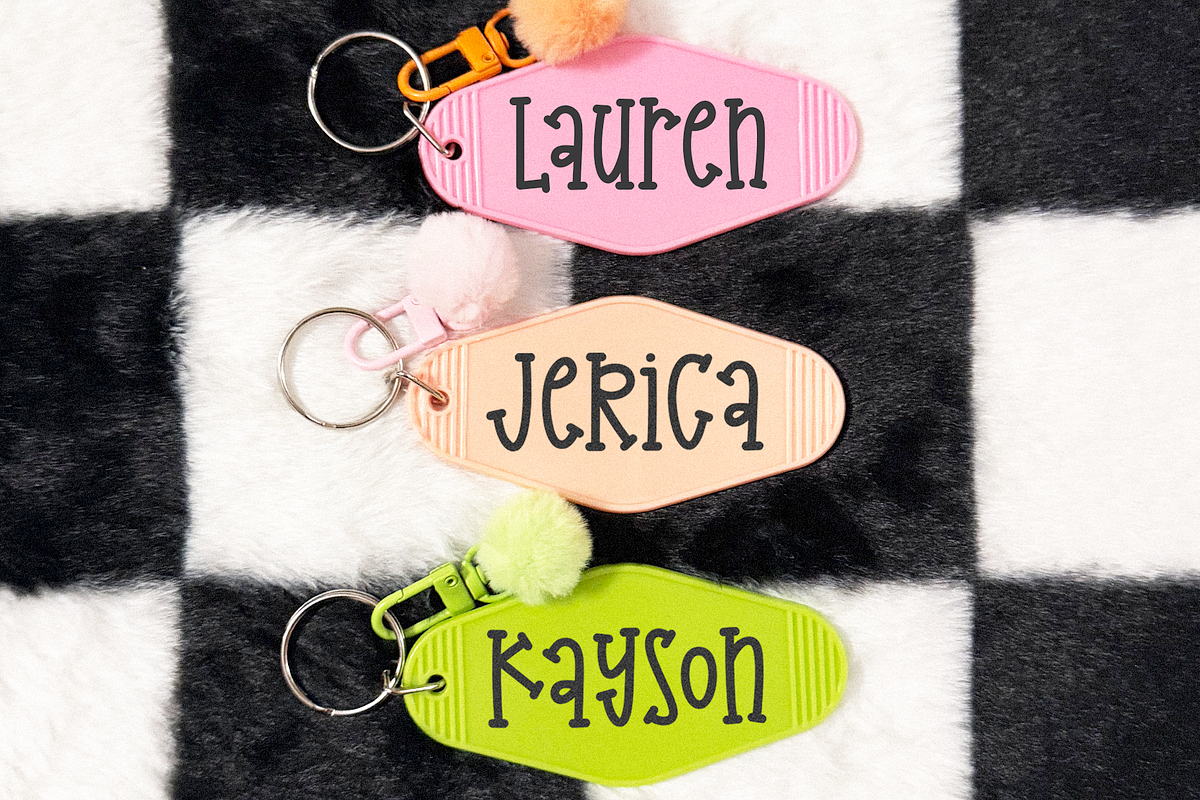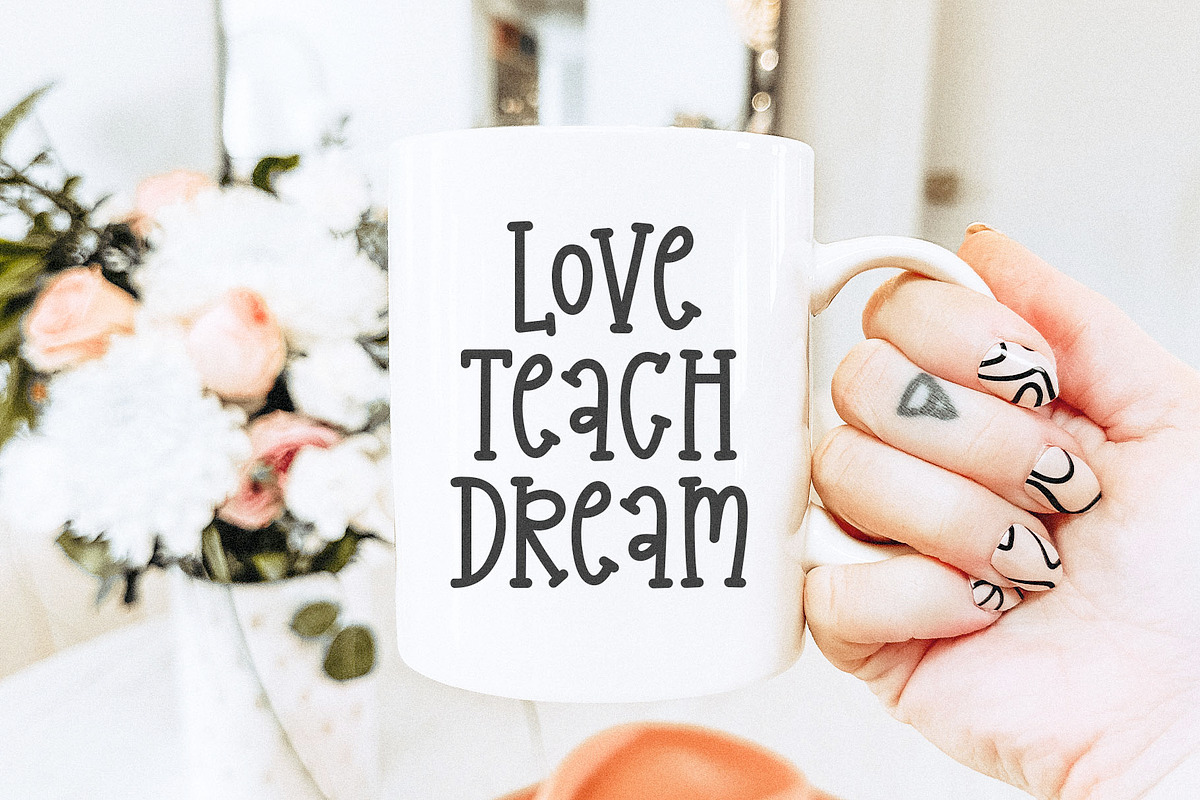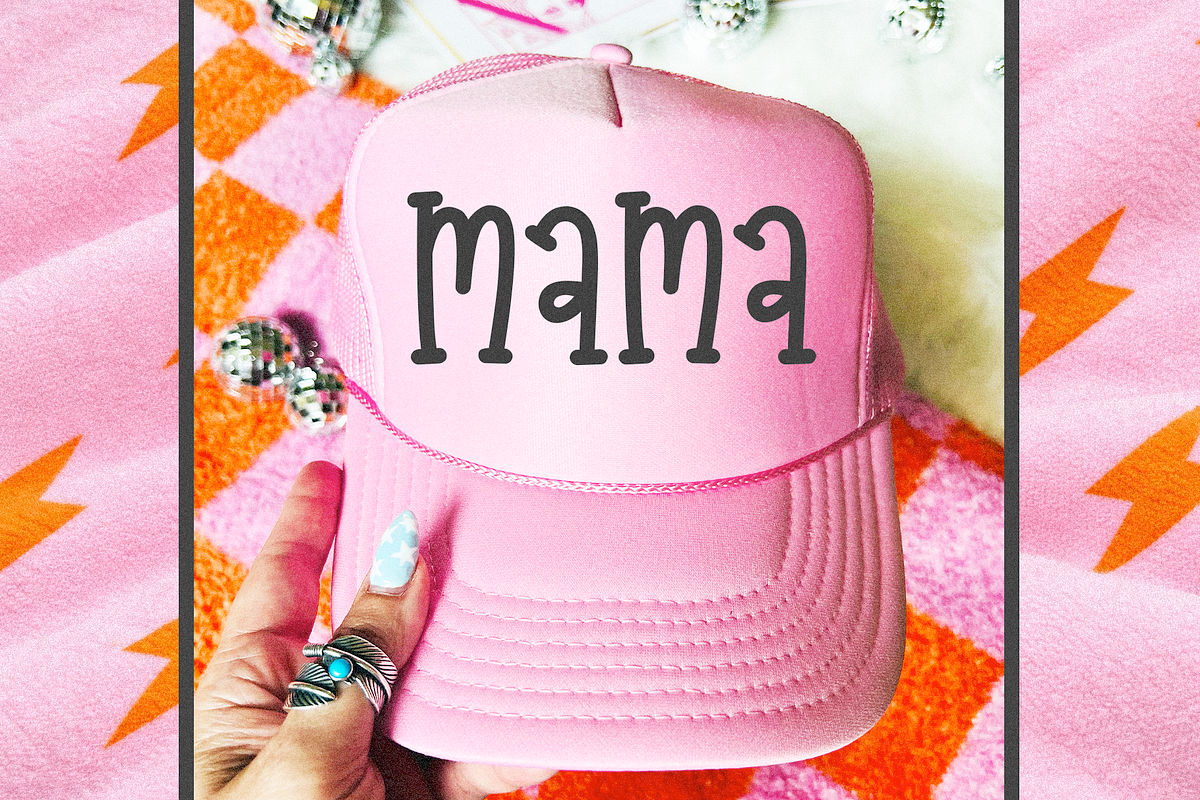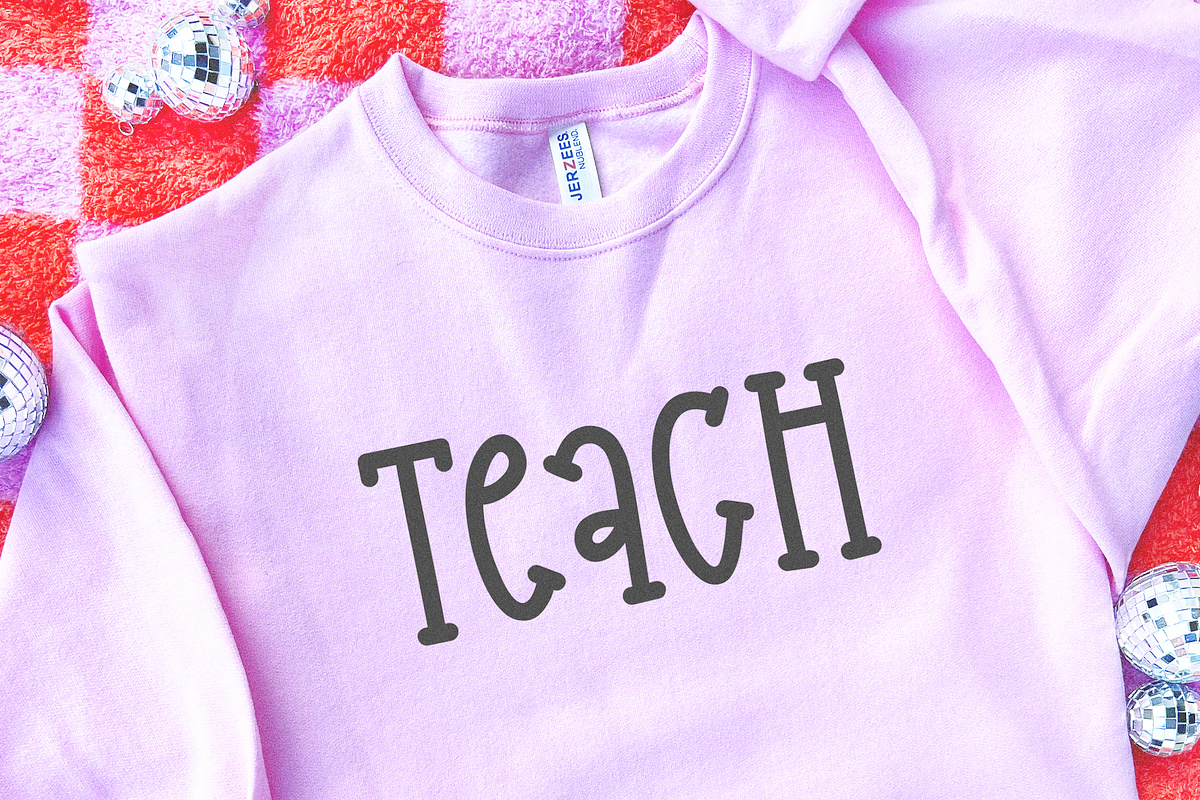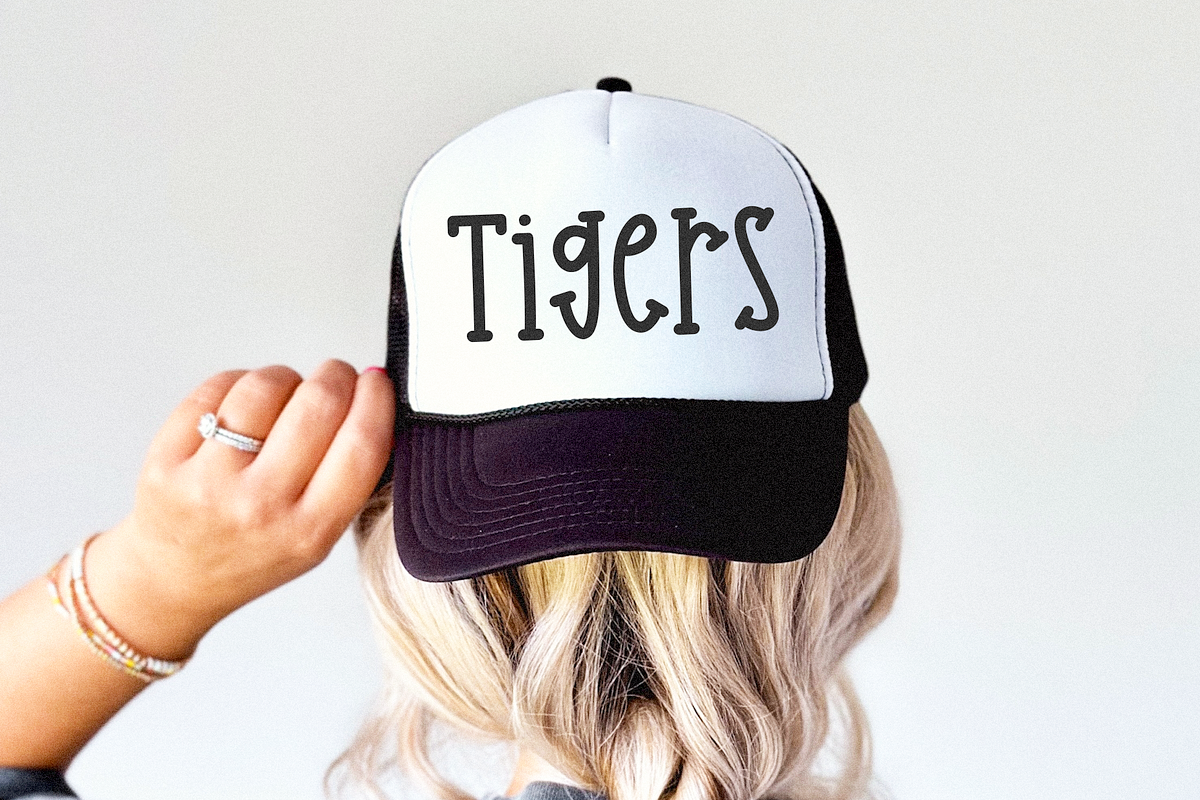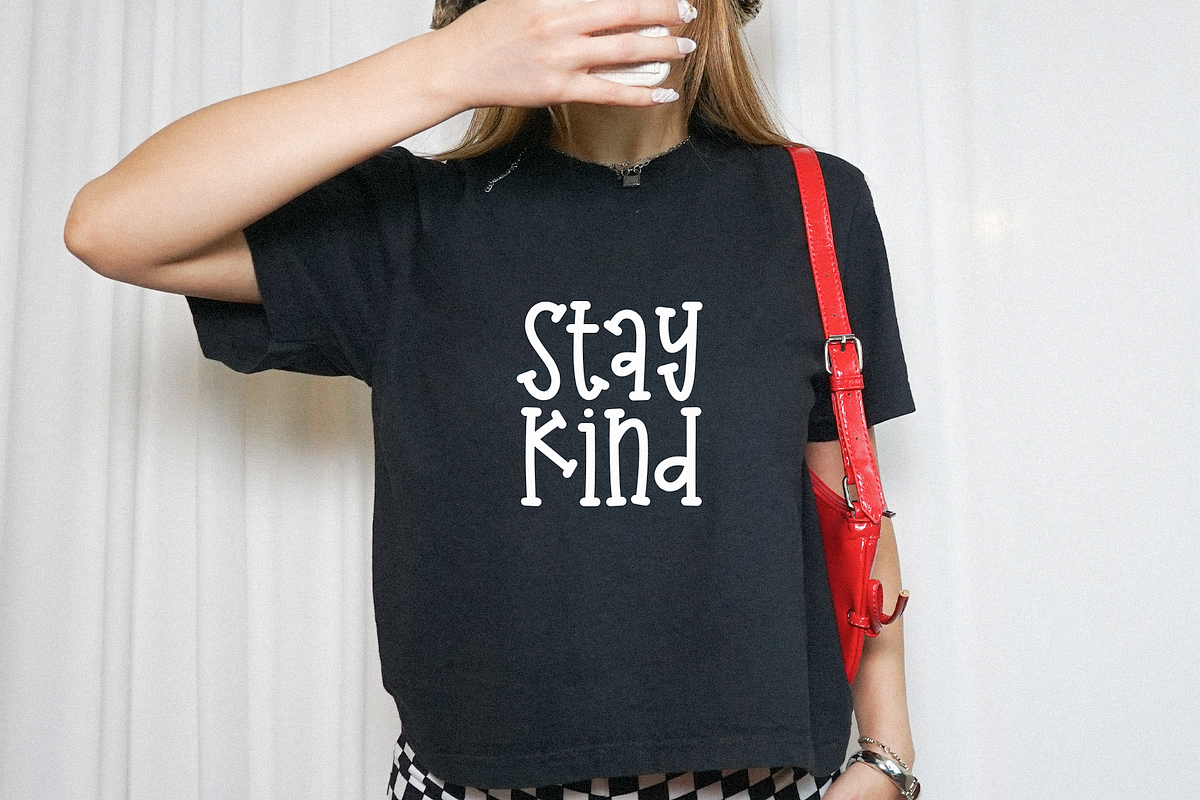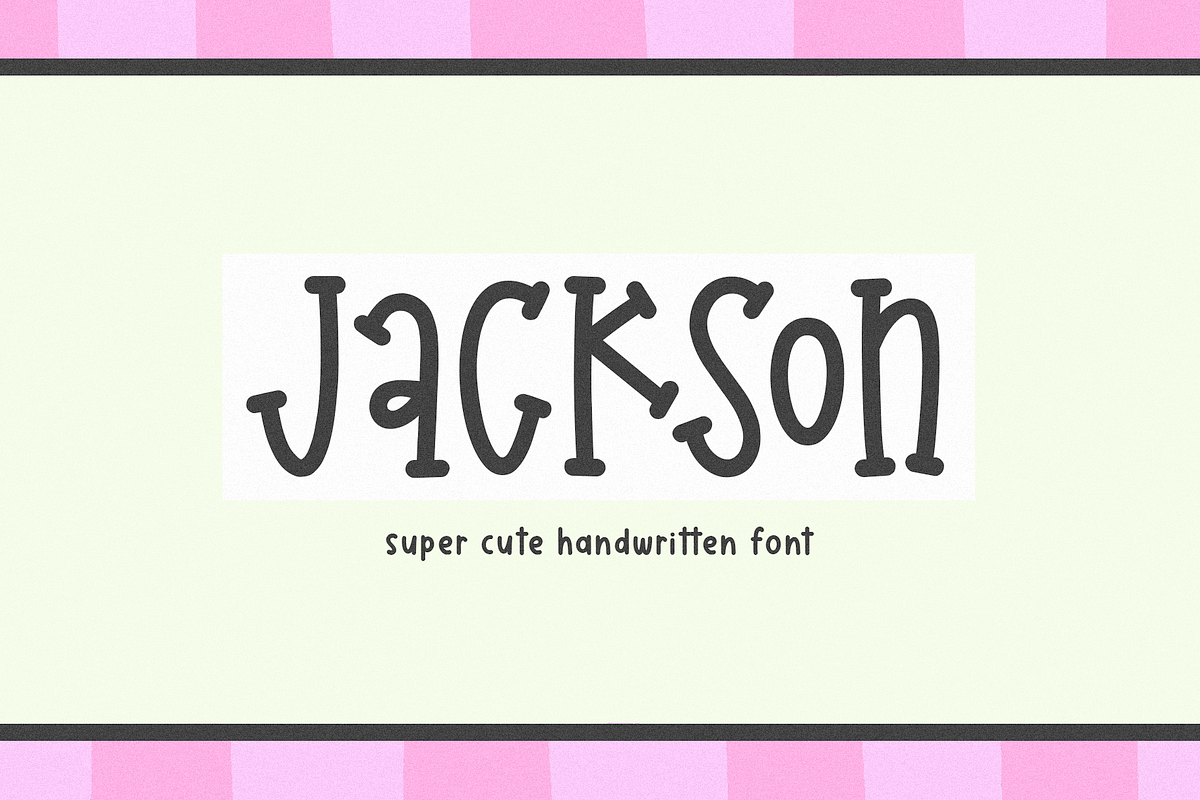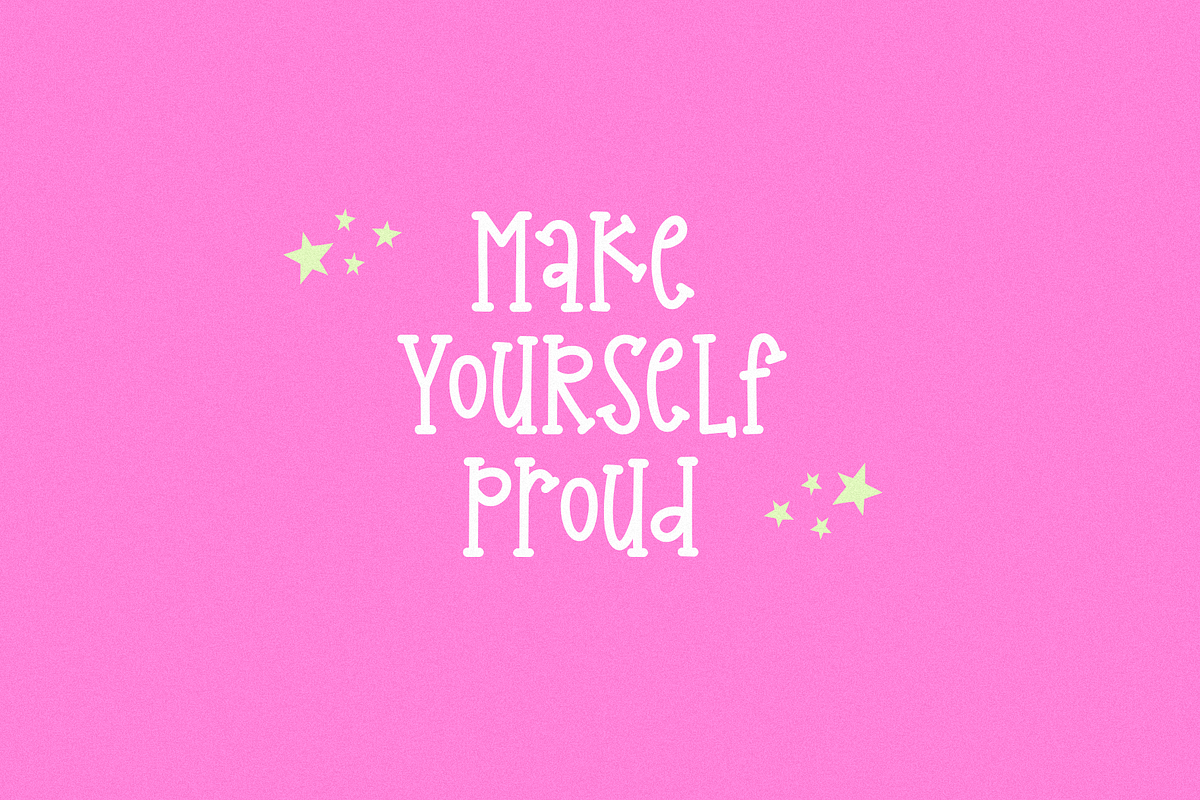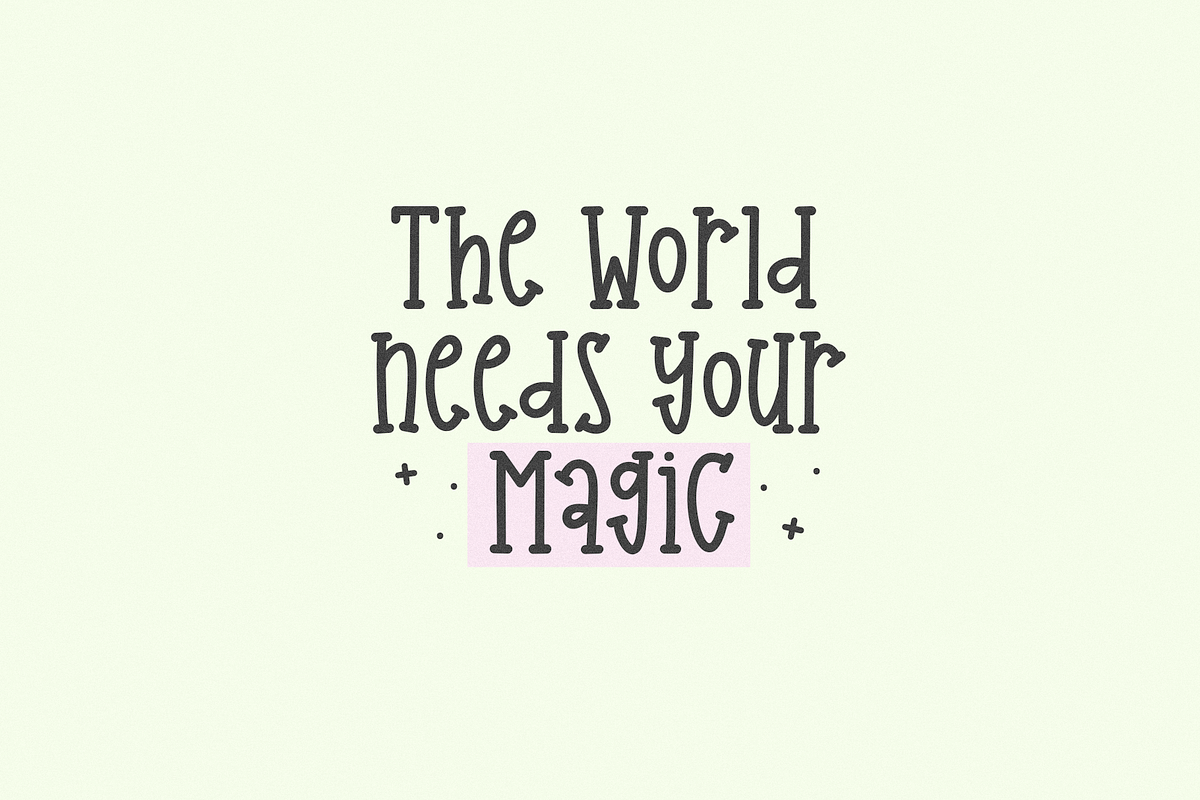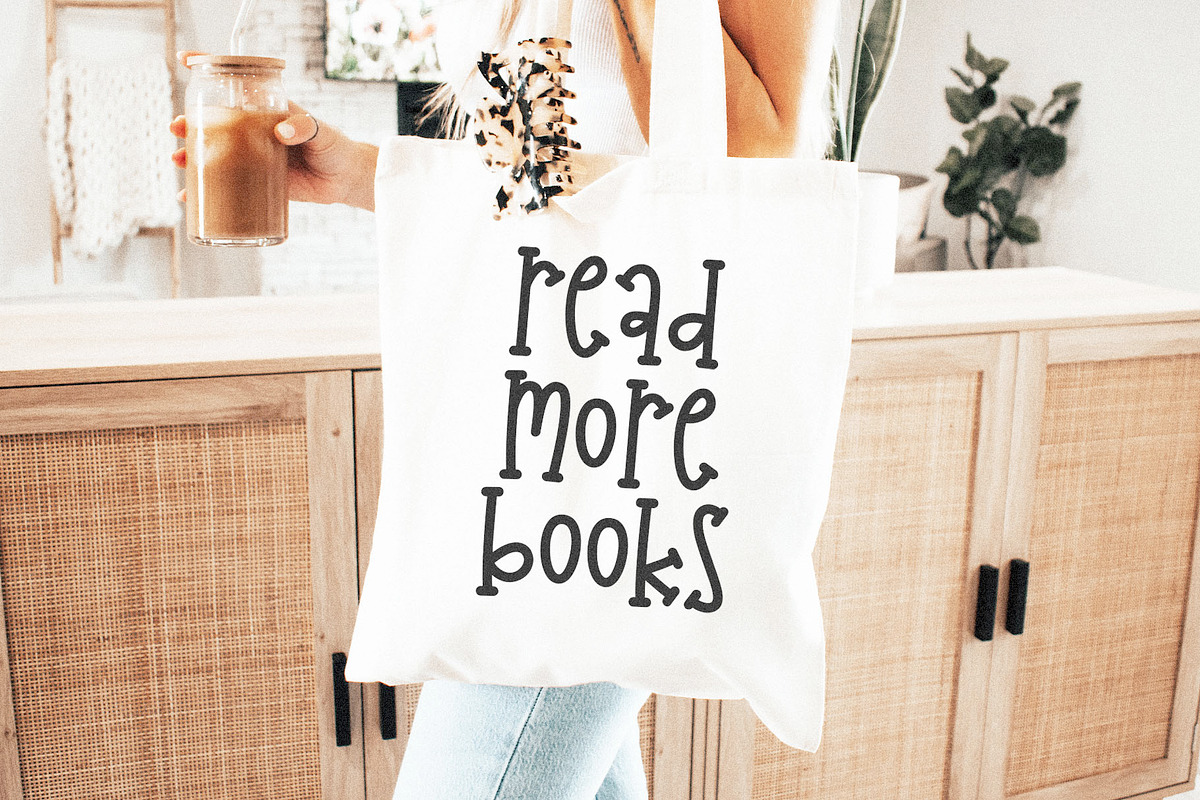
Jackson | Cute Serif Font
Jackson is a cute + quirky handwritten font!
This font is perfect for logos, custom names, school sports teams, cricut, canva, painted banners, logos, shirts, svg files, teachers, digital planners and more!